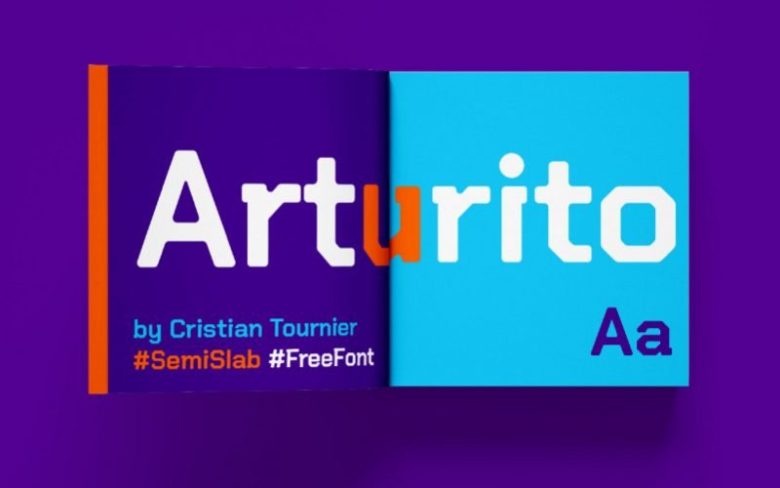
Arturito Free Font
Designed with minimal lines to keep it simple and artistic. It gives your texts modern smart effects. This font is perfect for Esport logo or illustration design, headlines or packaging design. This combination allows you to easily build powerfull designs in a short time.